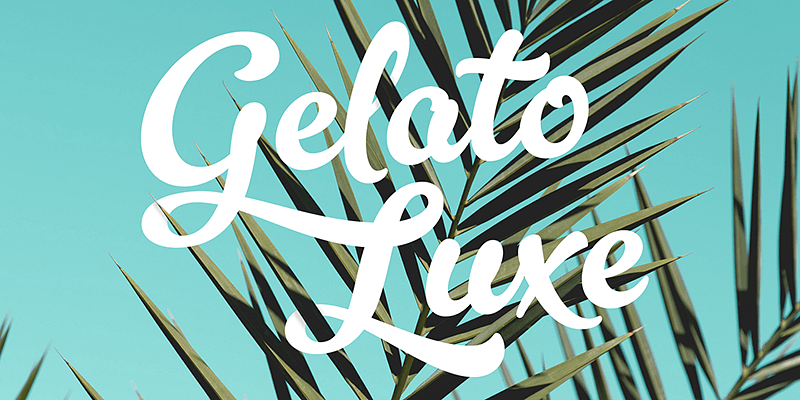
Gelato Luxe Font Free Download is a smooth, stylish script typeface that blends retro charm with luxurious elegance. With its fluid, handcrafted curves and refined swashes, Gelato Luxe is perfect for branding, wedding invitations, product packaging, boutique signage, and any design that aims to be both playful and upscale.
Inspired by vintage dessert menus and high-end fashion labels, Gelato Luxe Font delivers personality and sophistication. Its flowing strokes and versatile ligatures make it easy to customize and add flair to any creative project, whether digital or print.